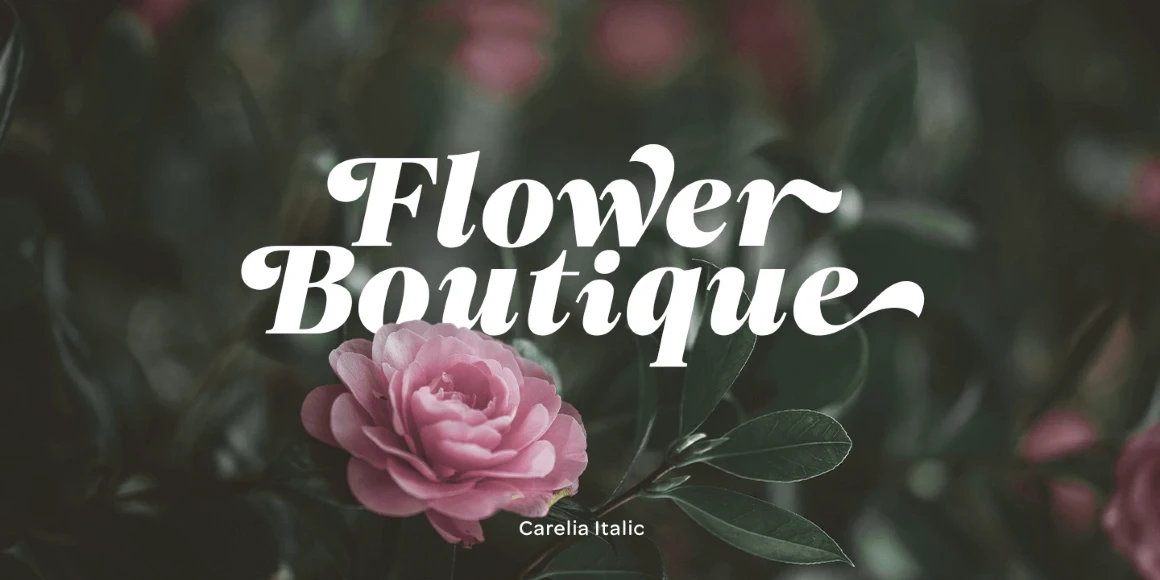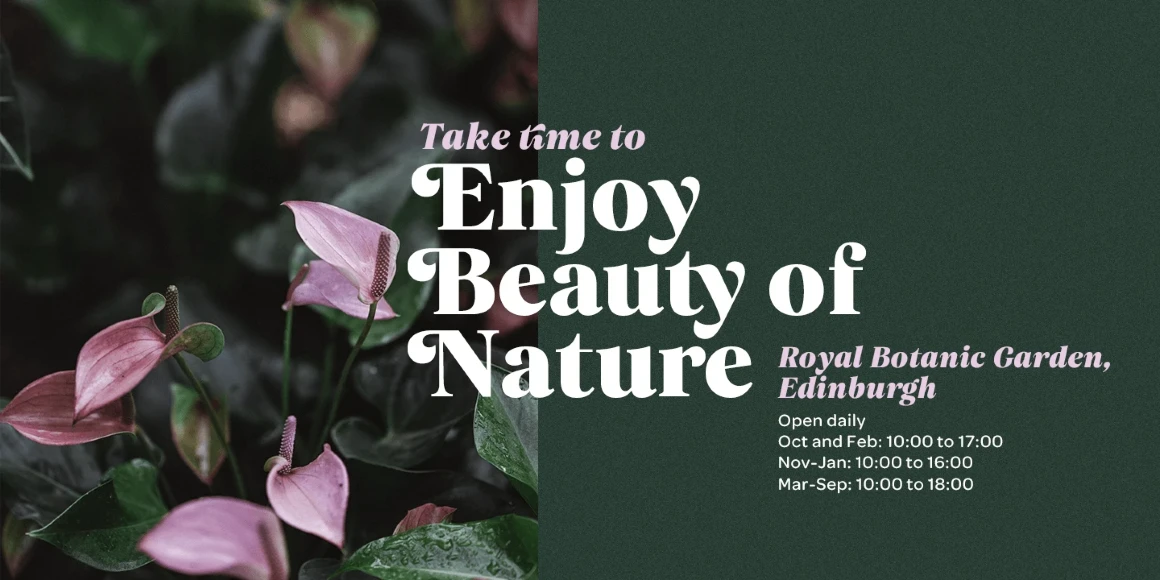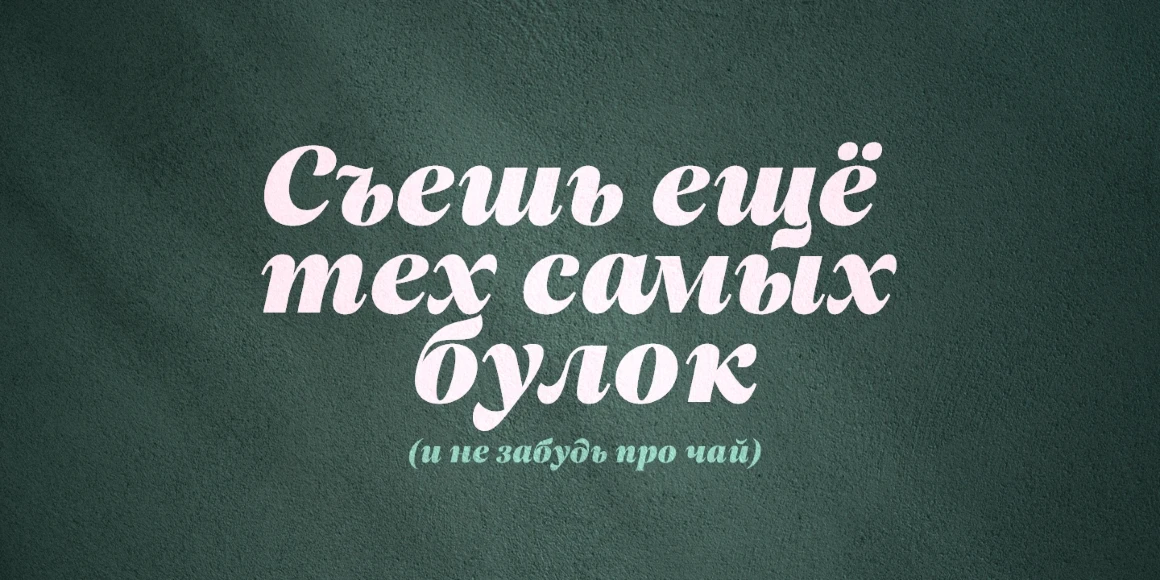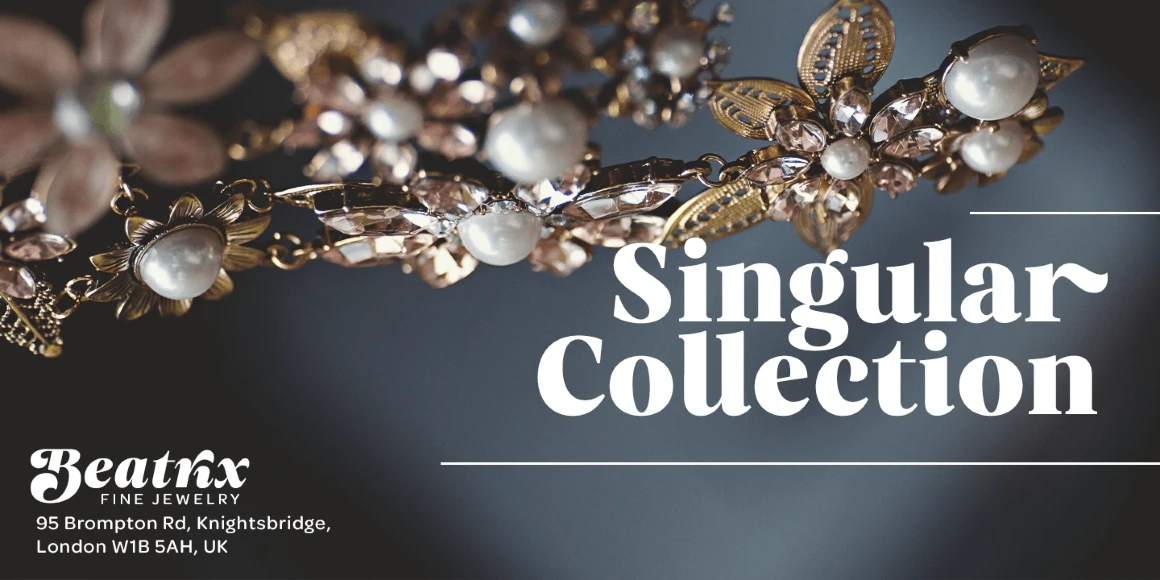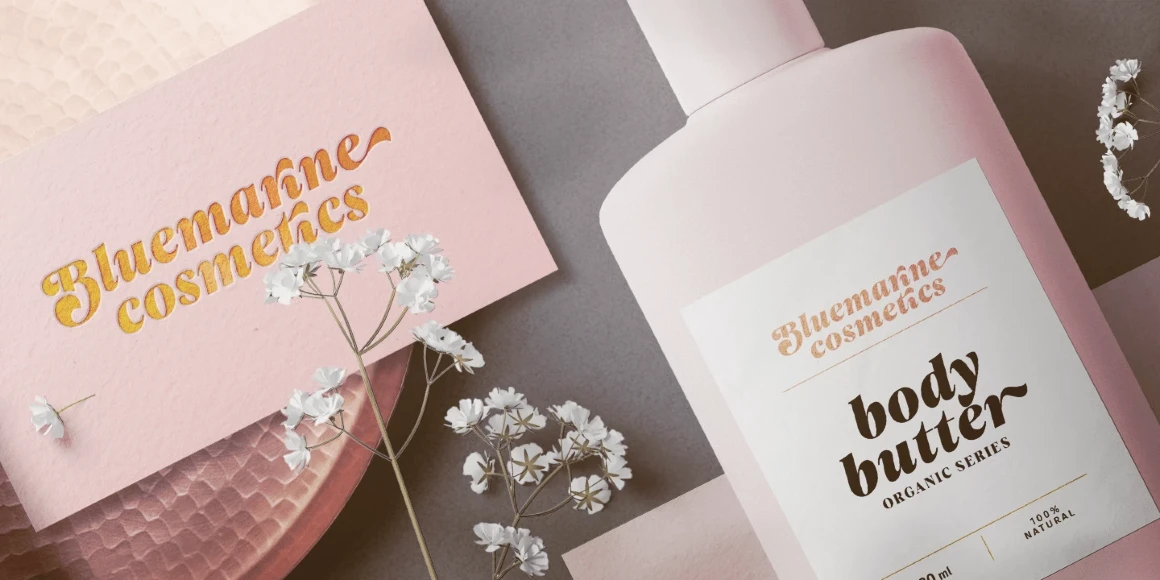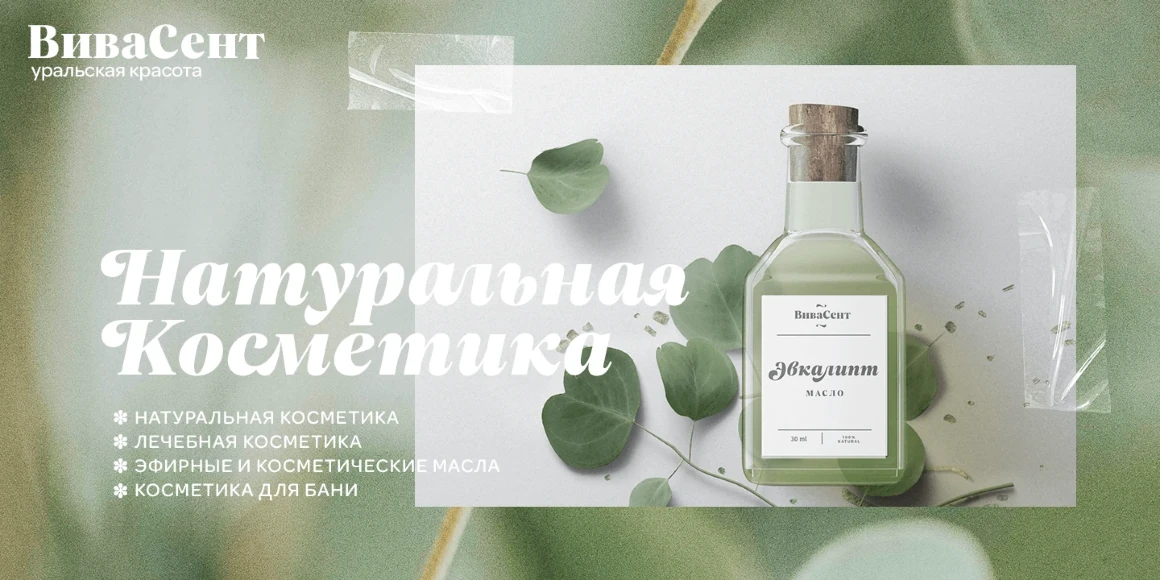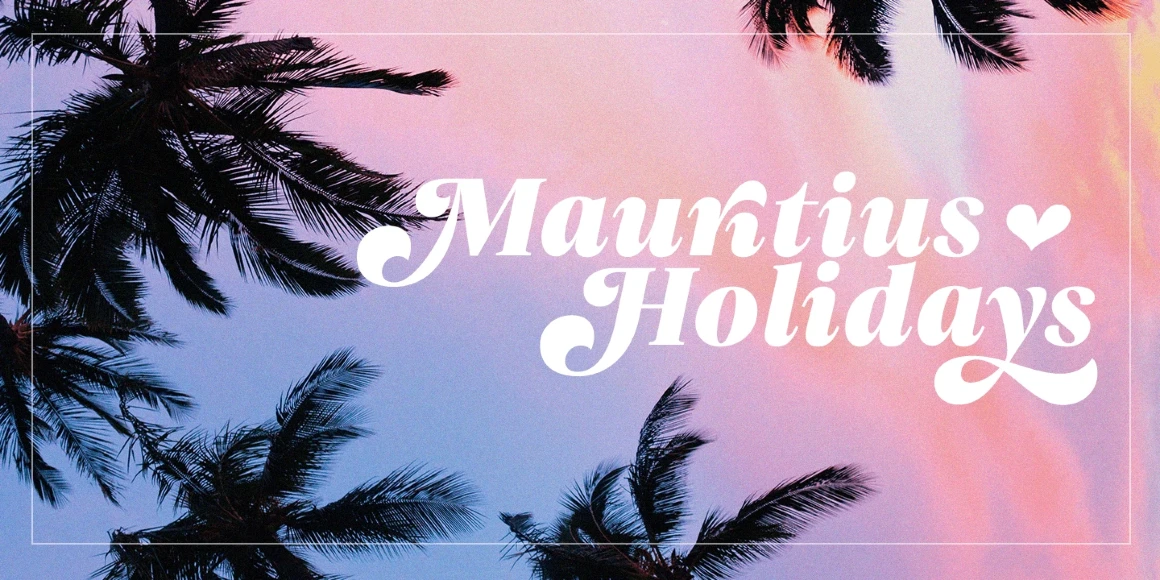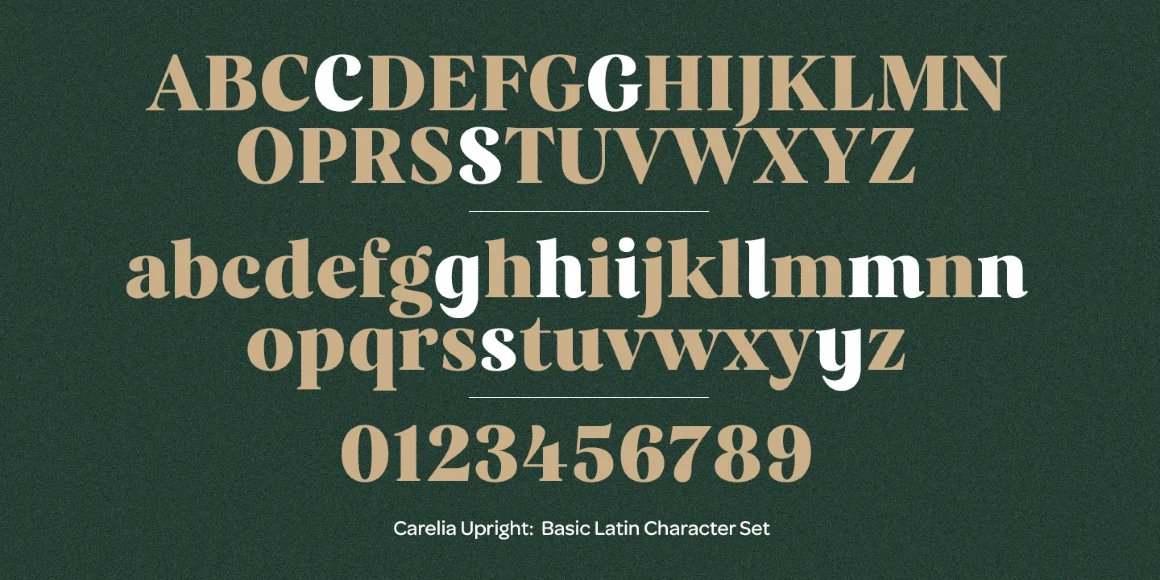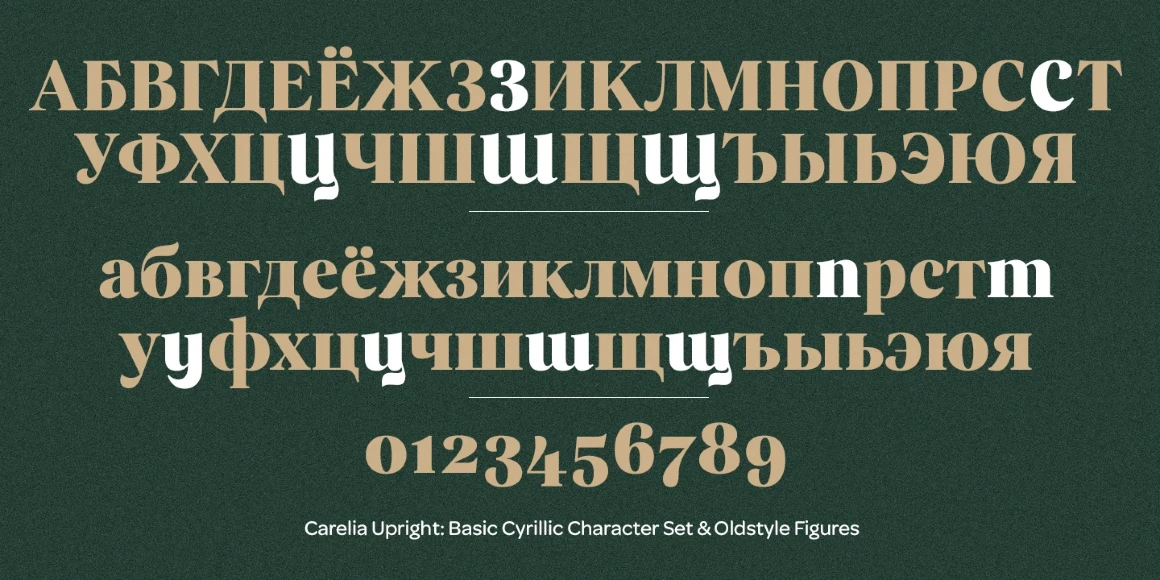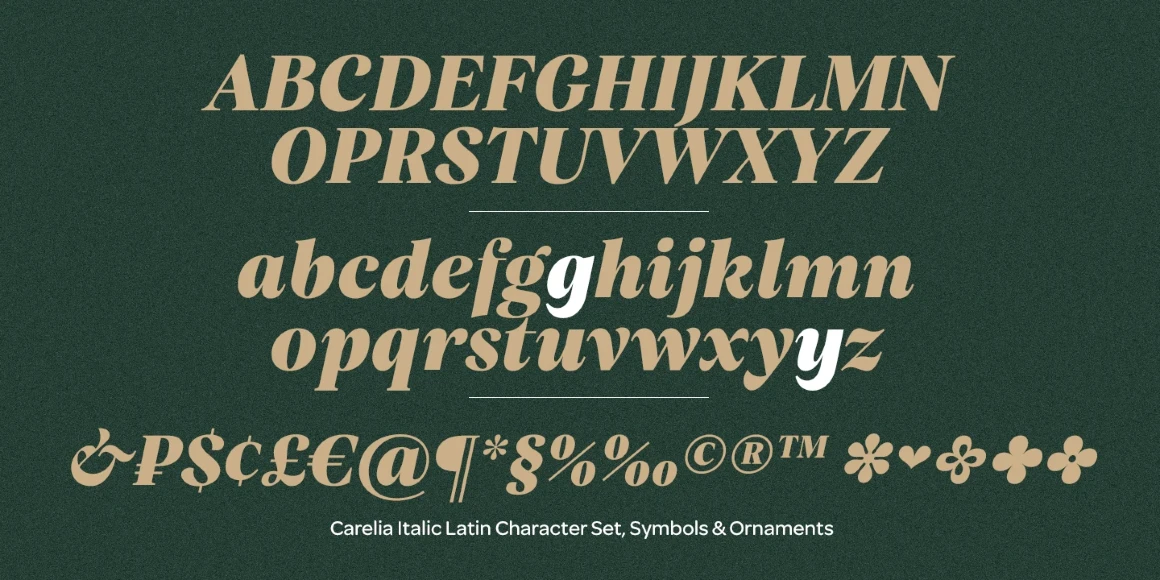
Carelia
From My Creative Land
Carelia is a high-contrast modern serif design with classic forms. It is well-suited for all sorts of projects, including — but not limited to — websites, editorials, and branding. Carelia might only have two styles, but with all of the stylistic alternates, swashes, and ligatures available, you can make your design even more stylized and unique. Carelia comes with both Latin and Cyrillic glyph sets.
Designed by Elena Genova
• Belarusian
• Bulgarian
• Russian
• Serbian
• Ukrainian
• Uzbek
Carelia Bold
Carelia Bold Italic
Uppercase Letter Cyrillic
Lowercase Letter Cyrillic
Stylistic Set 8
Stylistic Set 9
Stylistic Set 10
Stylistic Set 11